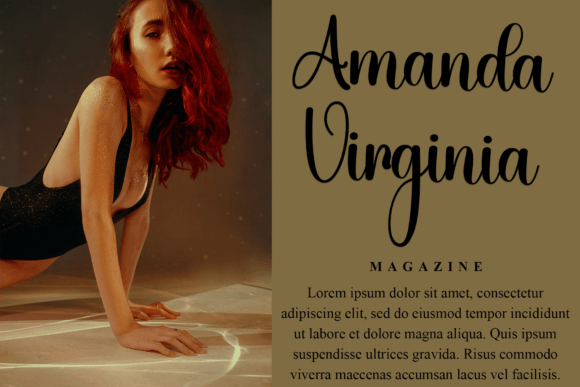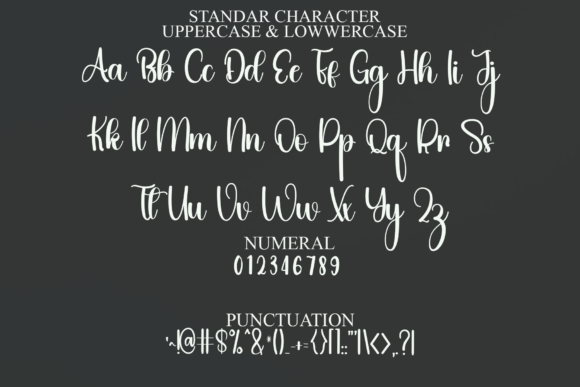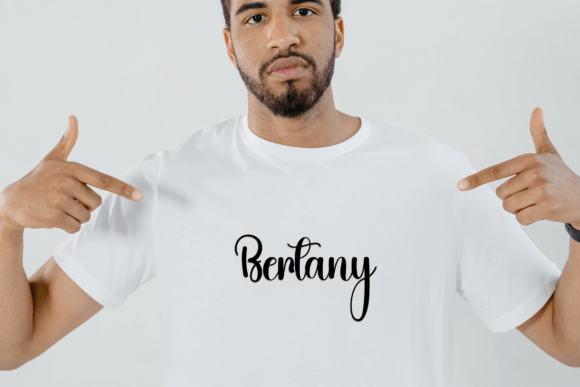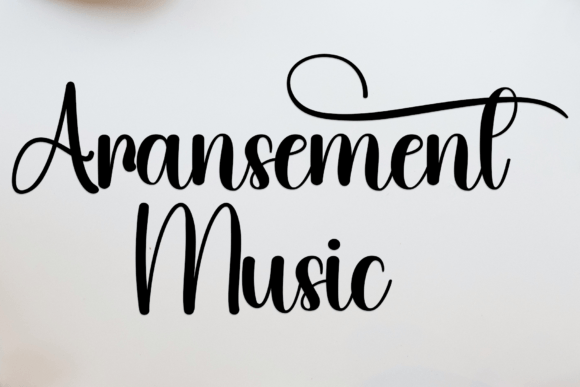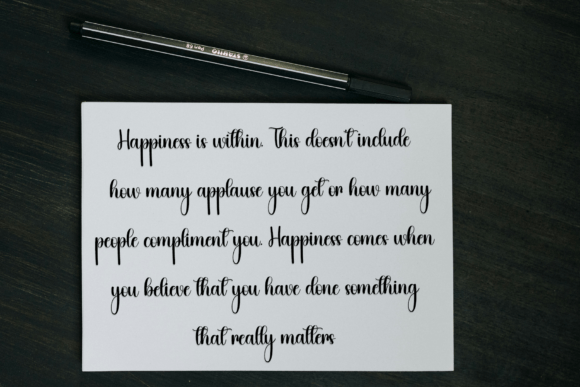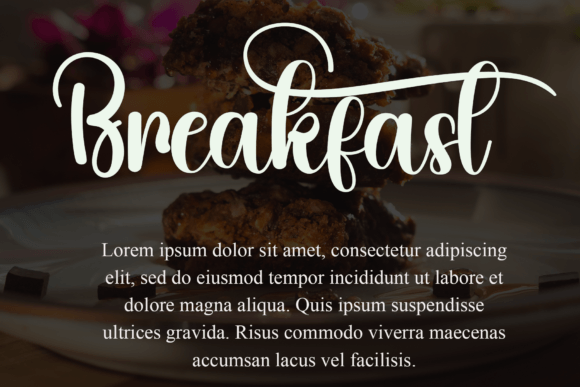
The Sweet Spot: Discovering Chocolate Brownies Font
I still remember the design project that led me to discover the Chocolate Brownies font. I was working on a wedding invitation suite, and my client had a very specific vision: elegant, modern, and with a touch of whimsy. As I scrolled through font after font, nothing seemed quite right. That was until I stumbled upon Chocolate Brownies. Its refined handwritten style and classy vibe instantly won me over. In this article, I’ll share my experience with this beautiful font, its features, and how to make the most of it in your designs.
Here’s what I love about Chocolate Brownies font:
- ✨ Effortless elegance: The font exudes a sense of sophistication and refinement, making it perfect for high-end branding, weddings, and luxury designs.
- ✅ Versatility: Use it for logos, social media posts, invitations, stationery, or any project that needs a touch of class.
- 💡 PUA encoded: Easily access a wide range of glyphs and ligatures to add personality to your designs.
- 🌈 Modern and trendy: The font’s contemporary feel ensures your designs won’t look outdated anytime soon.
As for quirks or limitations:
- ⚠️ Occasional kerning issues: As with any font, you might encounter some kerning issues, especially when using all caps or mixing with other fonts. Just a heads up to proofread carefully.
- 🤔 Limited availability of variable font weights: While the font comes in several weights, it might not offer as many variations as some other fonts. This shouldn’t be a deal-breaker, though, as the existing weights cover a wide range of design needs.
The Story Behind Chocolate Brownies
While the actual story behind Chocolate Brownies might be unknown, it’s easy to imagine a designer with a passion for chocolate and typography creating this beautiful font. Perhaps they wanted to bottle the elegance and warmth of a chocolate brownie in a digital font, making it accessible to designers worldwide. Whatever the inspiration, Chocolate Brownies has become a beloved font among designers and crafters.
| What makes Chocolate Brownies font special? | Its elegant, modern look, PUA encoding for easy access to glyphs and ligatures, and versatility for various design projects. |
| Is Chocolate Brownies suitable for body text? | While Chocolate Brownies is beautiful for headings and titles, it might not be the best choice for long body text due to its elegant, cursive nature. |